Top 20+Perfect Logo Fonts For Branding Design 2023
20+Perfect Logo Fonts For Branding Design 2023. How to choose the most suitable font for logo and brand design? Font choice is a critical element of logo design. By changing your logo font, you can completely change your brand’s mood and message. Your font even has the power to influence your customer’s thoughts and emotions! However, there are many fonts that you can select from. So, how do you know you’ve found the right one for your brand? In this article, we present 20+ popular logo fonts for your branding design that will make an impact in 2023.
Cemen Logo Font
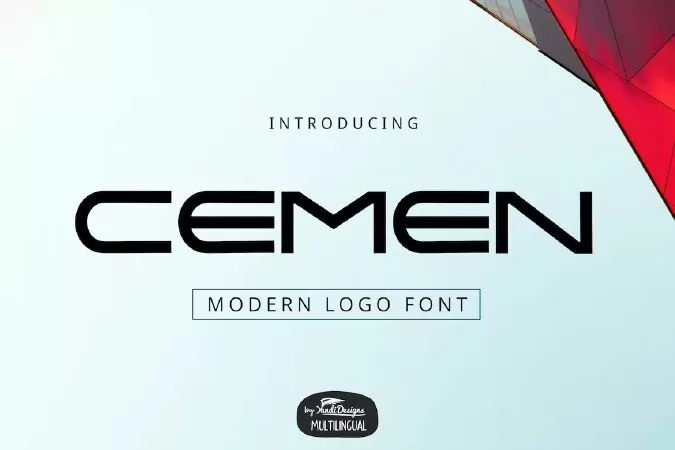
Cemen Font
Cemen is futuristic and modern multipurpose font, suitable for many project children book, quotes, logo , heading , title etc.
Armouk - Logo Font
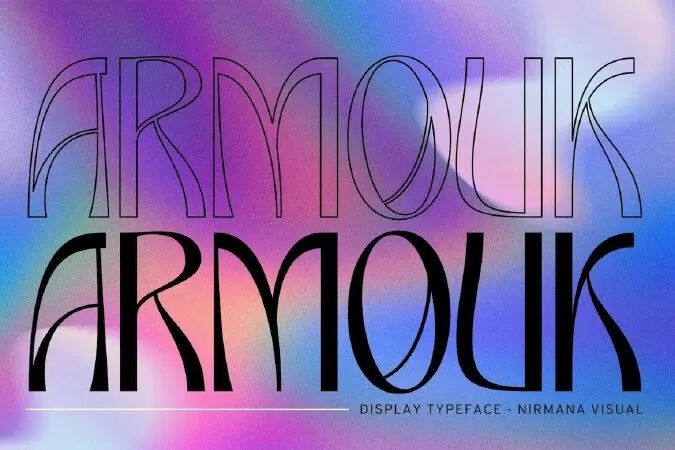
Armouk , contemporary of Sans serif font,
Armouk offers beautiful typographic harmony for a diversity of design projects, including logos & branding, social media posts, advertisements & product designs.
Claypert - Logo Font
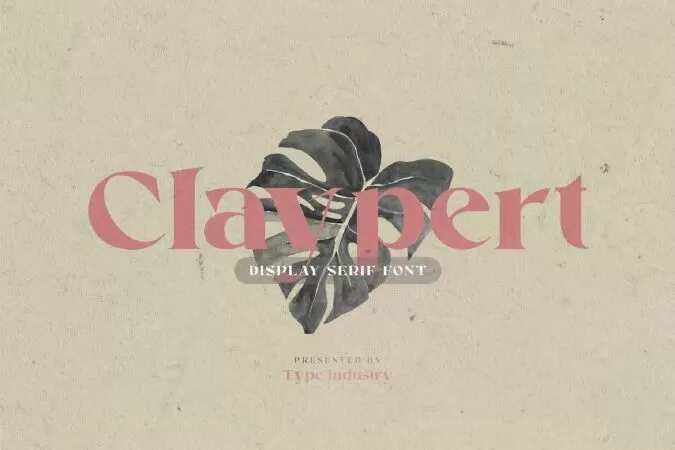
Type Industry presents Claypert Display Font, it's a beautiful display font which is inspired by elegant shape and beauty. This font has approximately 256 glyphs characters including uppercase, lowercase number, punctuation and alternatives. Make the beautiful impression of this font stand out more. It is suitable for creating beautiful designs such as logo posters, magazine, brochures, business cards and others. --- Features:
Blandit - Display & Logo Font family
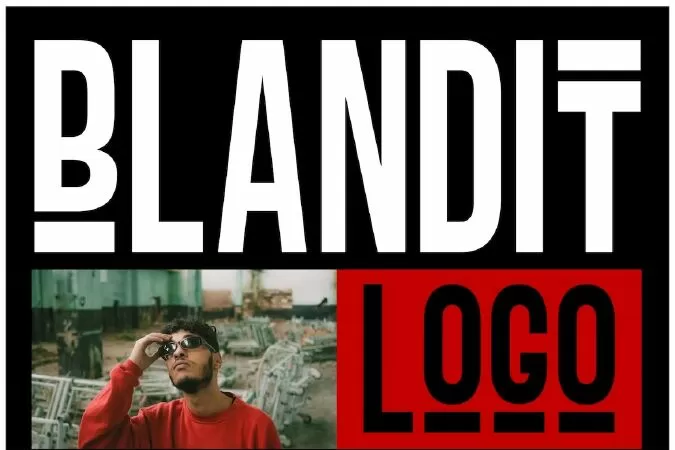
Blandit - Modern Logo Font
Blandit is a Display font family for design of minimalistic logos. The fonts are very much suitable for creating wordmarks, titles, taglines,Film Posters, headlines, Block letter, Subheading, Logo Designs, Big Banners. Classic & Decorative Typography Web Designs.
Braque - Modern Geometric Logo Font
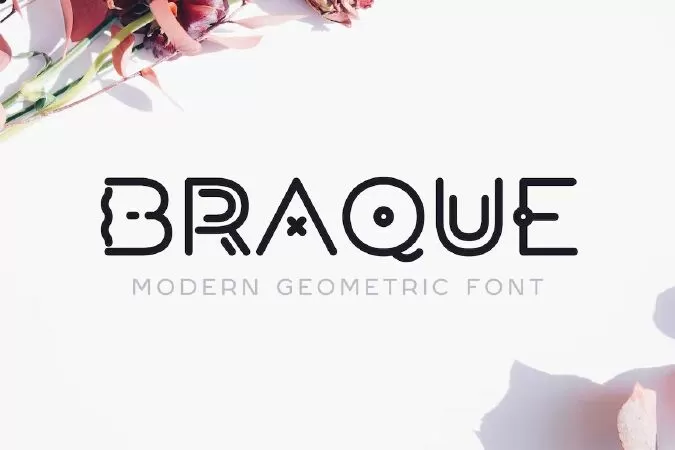
Introducing Braque - a modern and geometric logo font with minimal vibes.
This abstract font is meant to be used for headlines, titles, logos, posters, flyers, etc - anything that requires a unique geometric typeface with modern vibes.
The font comes with a basic set of latin characters in uppercase and lowercase in addition to special glyphs.